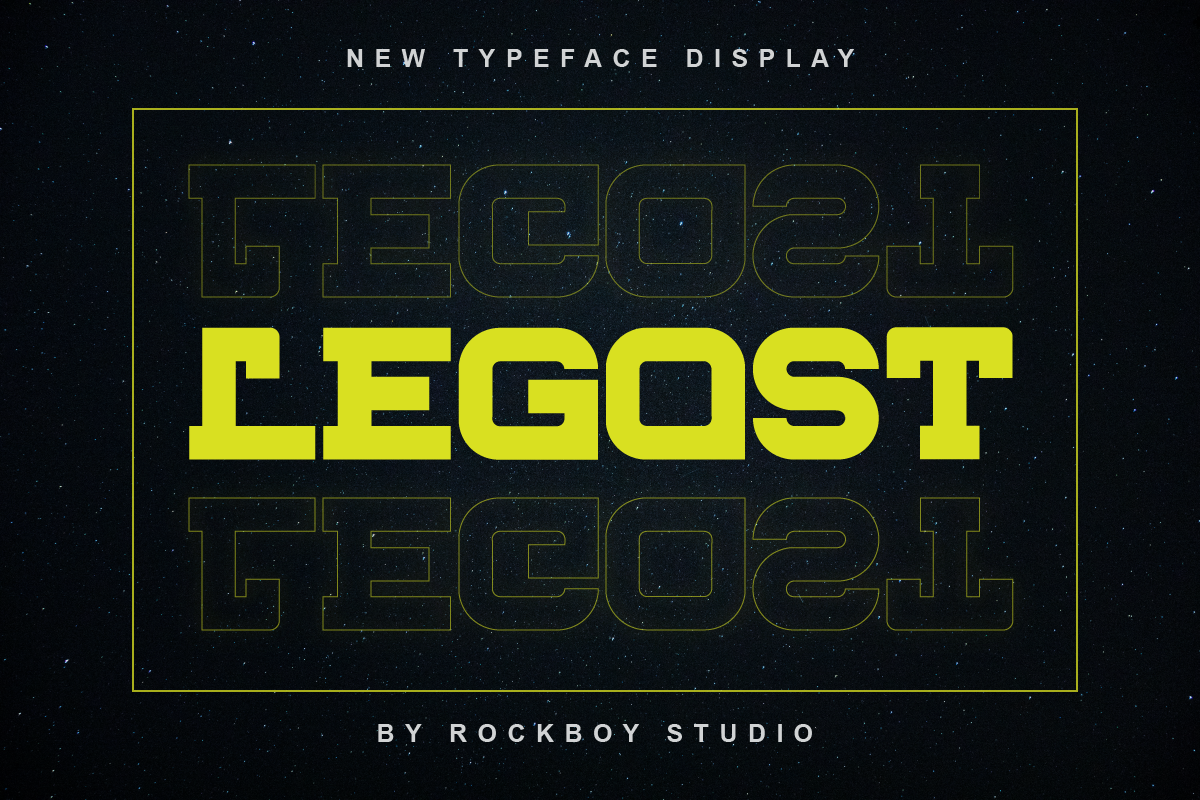
Legost - Logotype Font
Legost is an elegant and charming serif font. It can easily be matched to an incredibly large set of projects, so add it to your creative ideas and notice how it makes them stand out!